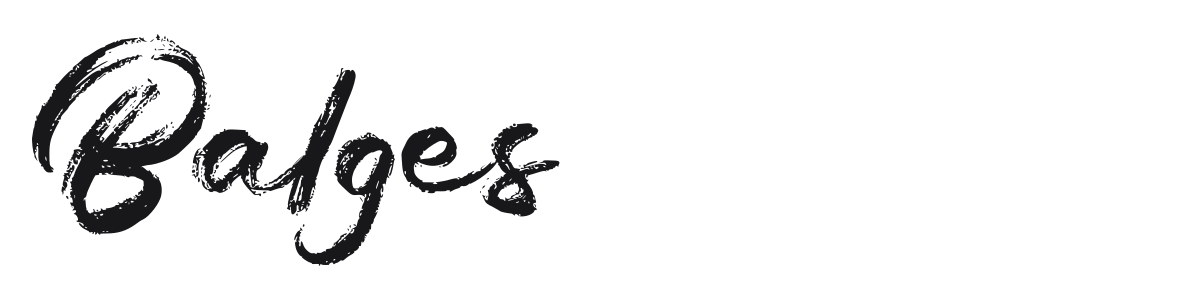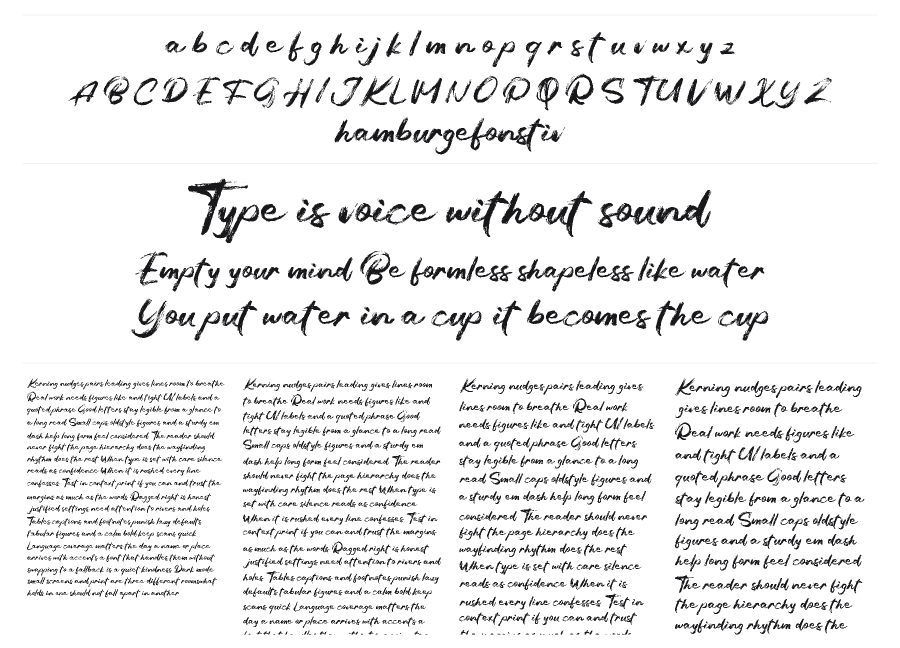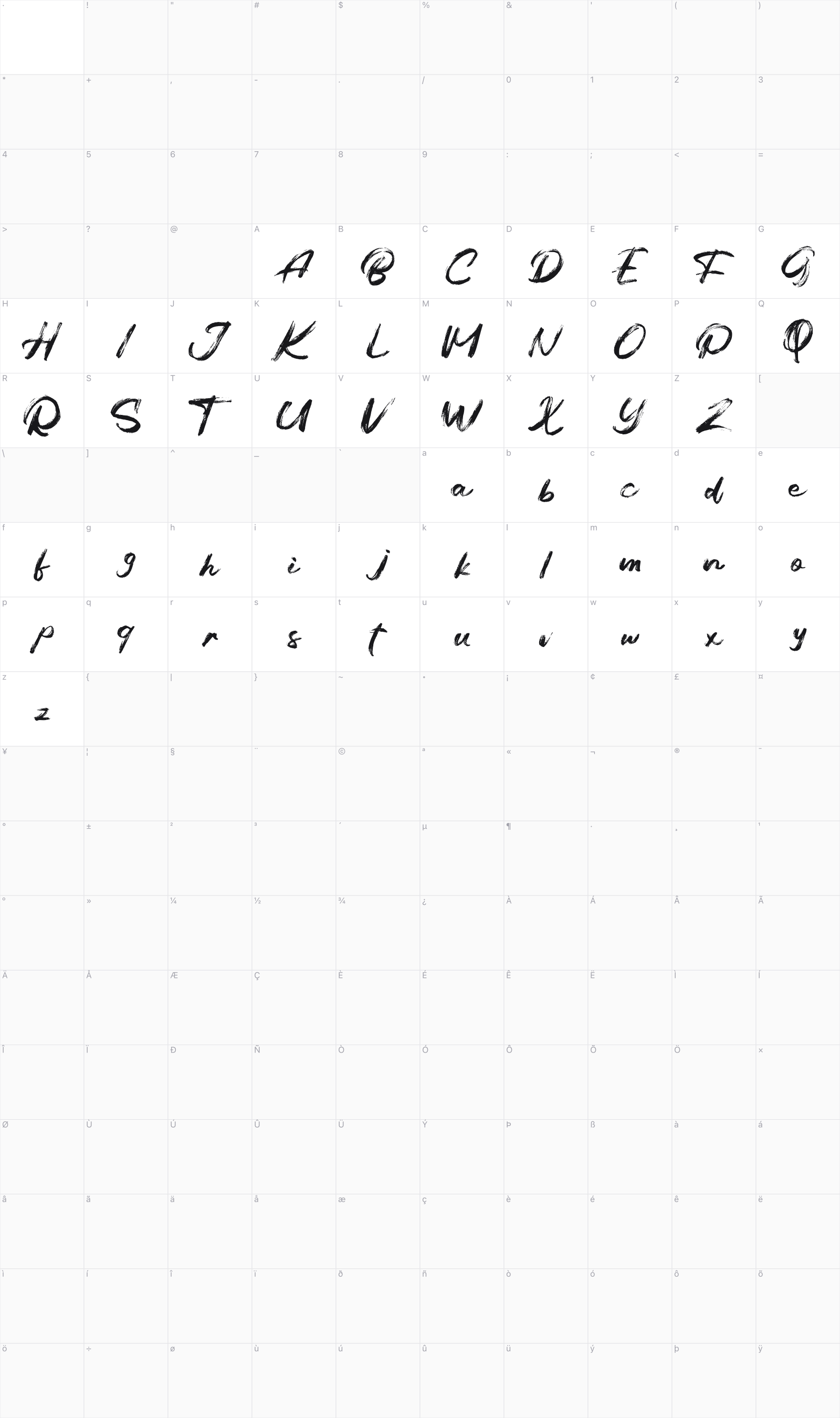
Balges
Balges is a rough brush script with the look of quick, confident strokes laid down with a loaded brush. Visible bristle textures and natural stroke variation give it an authentic hand-painted feel that polished scripts can't fake. It brings energy to logos, packaging, and editorial headers where character matters.